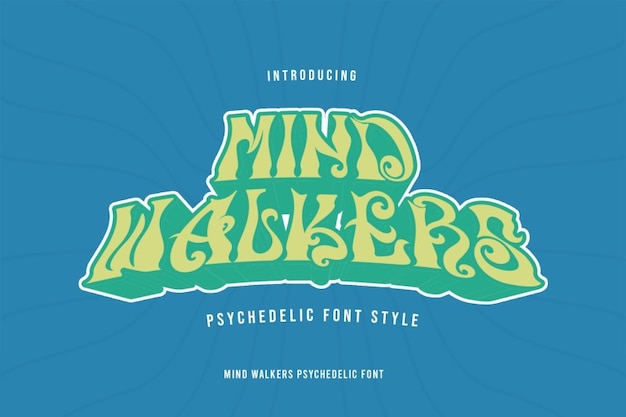
Mind Walkers Font
A font that infuses the creepy charm of zombies with a psychedelic comic twist. Its letters shuffle like the undead, invoking a mind-bending and spine-chilling experience. With each character, you're immersed in a world of sinister allure. 'Mind Walkers' adds a touch of undead fascination to your text, where every letter is a brushstroke of creepy vibes and hallucinogenic intrigue, crafting a typographic masterpiece that's both unsettling and captivatingly comic.